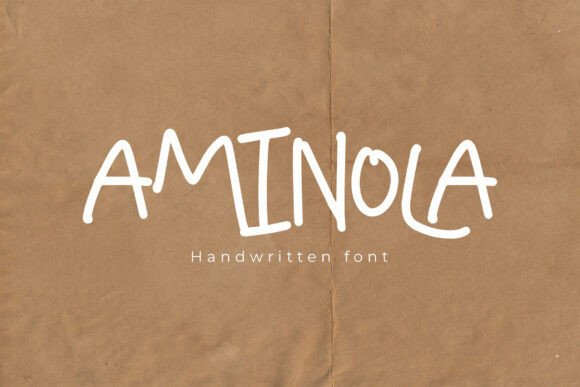
What is Aminola Font?
Aminola is a minimalist monoline handwriting font that features clean lines and unique character shapes. Its modern and sophisticated design makes it perfect for a variety of projects, from logos and product branding to invitations and more. With Aminola, you can add a touch of elegance and enhance the visual appeal of your creations.
My Honest Review of Aminola Font
- ✨ Clean and modern design: Aminola’s minimalist approach makes it perfect for designs that require a touch of sophistication.
- ✅ Elegant character shapes: The unique character shapes in Aminola add a touch of elegance to any design.
- 💡 Versatile: Aminola can be used for a variety of projects, from logos and branding to invitations and more.
While Aminola is an amazing font, there are a few things to keep in mind:
- 🤔 Limited ligatures: Aminola has a limited number of ligatures, which may be a drawback for some designers.
- ⚠️ Not suitable for body text: Due to its modern and elegant design, Aminola may not be the best choice for body text. It’s better suited for headlines and titles.
The Backstory of Aminola Font
Aminola Font was designed with the modern designer in mind. Its creator wanted to create a font that was both elegant and versatile, perfect for a variety of design projects. With its clean lines and unique character shapes, Aminola is sure to make a statement in any design.
Q: What is Aminola Font?
A: Aminola Font is a minimalist monoline handwriting font featuring clean lines and unique character shapes.
Q: What can I use Aminola Font for?
A: Aminola Font is perfect for a variety of design projects, including logos, product branding, invitations, and more.
Q: Is Aminola Font suitable for body text?
A: No, Aminola Font is better suited for headlines and titles. It’s not recommended for body text due to its modern and elegant design.